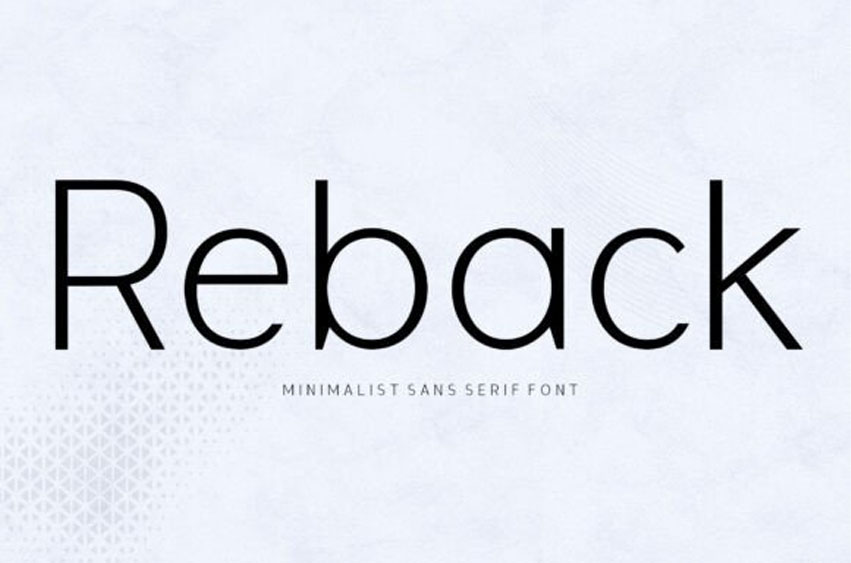
Reback Font
Reback Font is a Modern Font with Strong and Elegant characters. Meet Reback, a modern sans serif font that combines visual power with a touch of elegant minimalism. Made for those who want to stand out, Reback is designed to give a professional, bold, and characterful impression, without losing its flexibility.
Key features:
Clean and modern look
Strong, easy-to-read capital letters